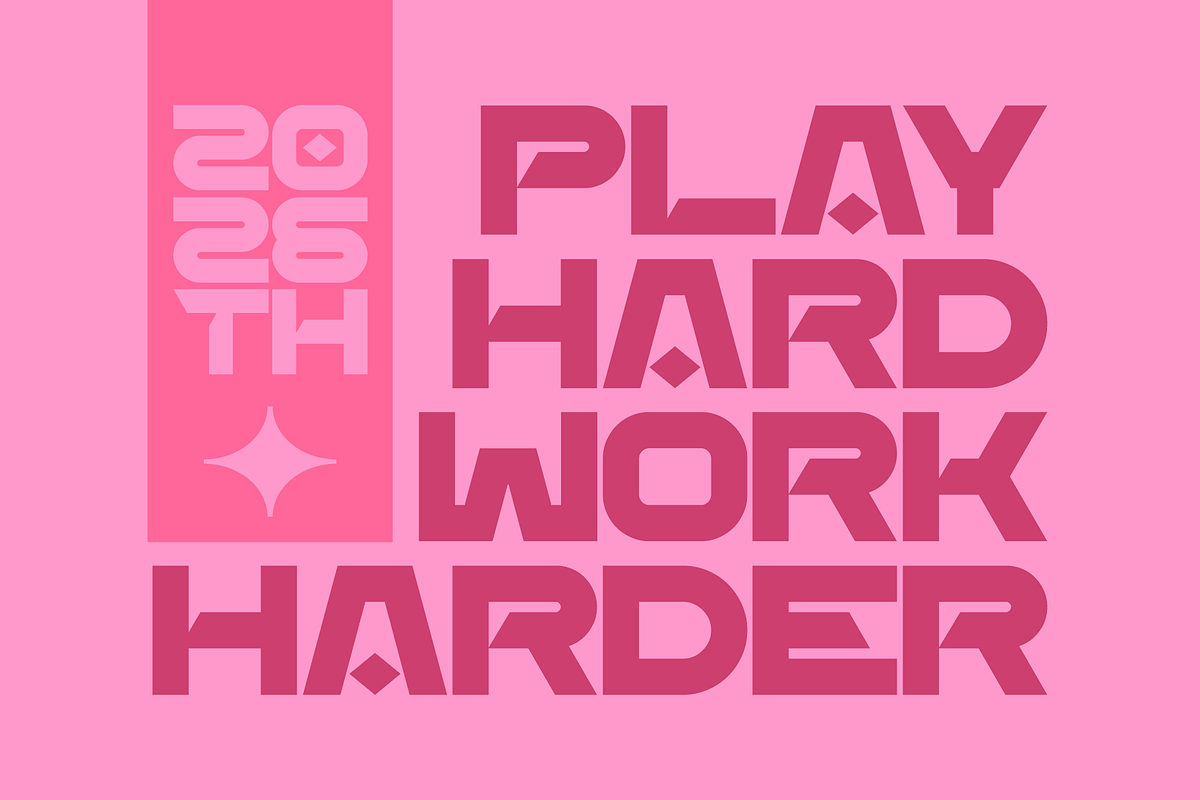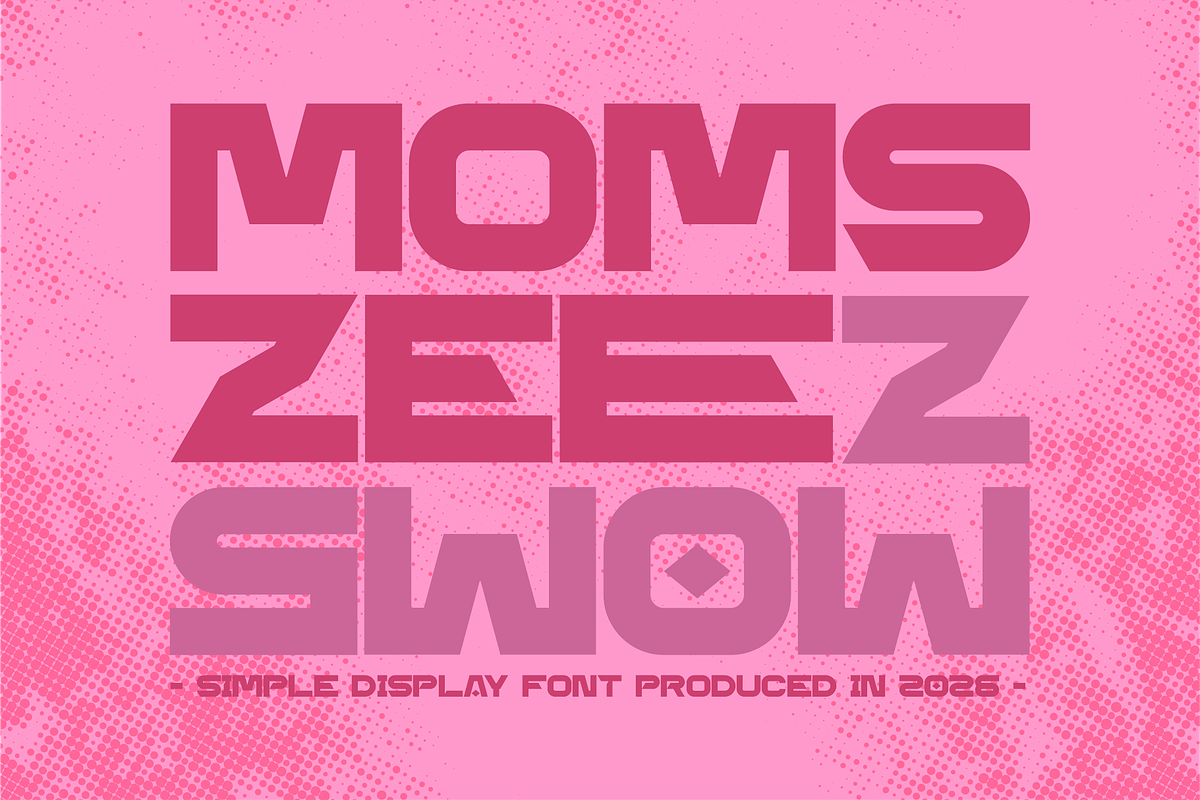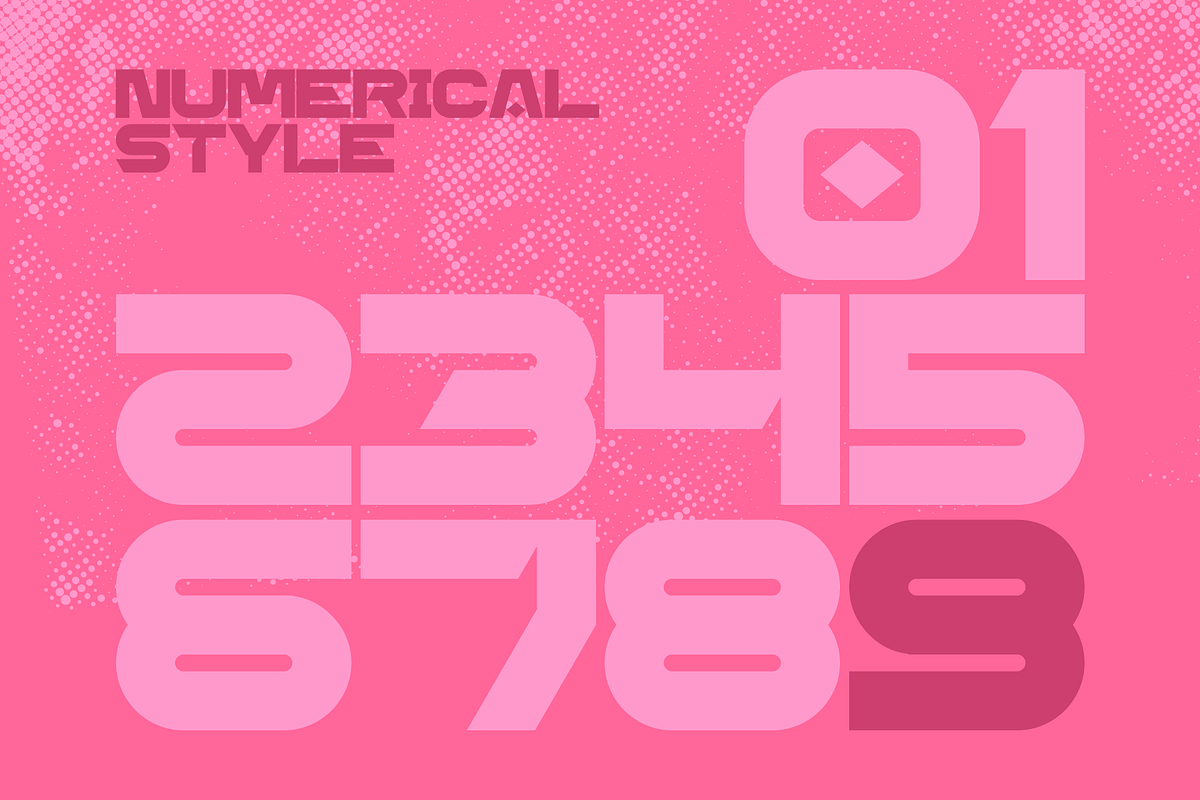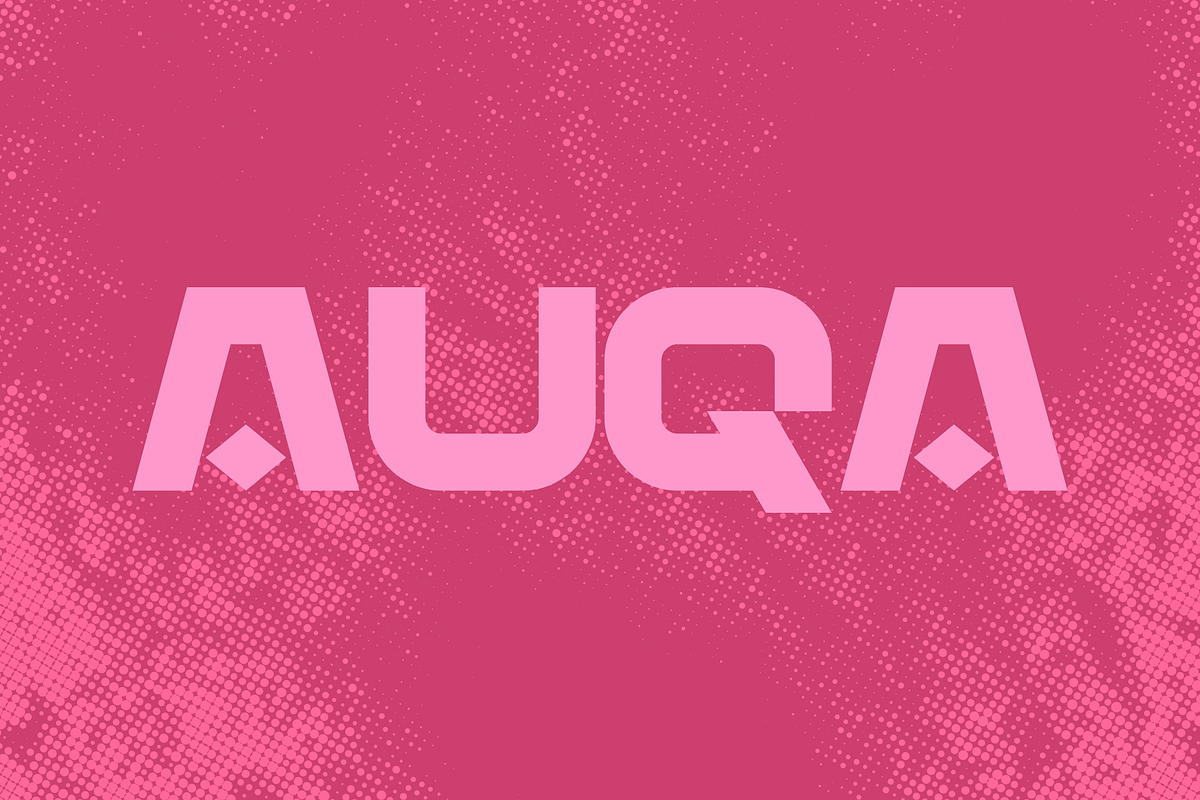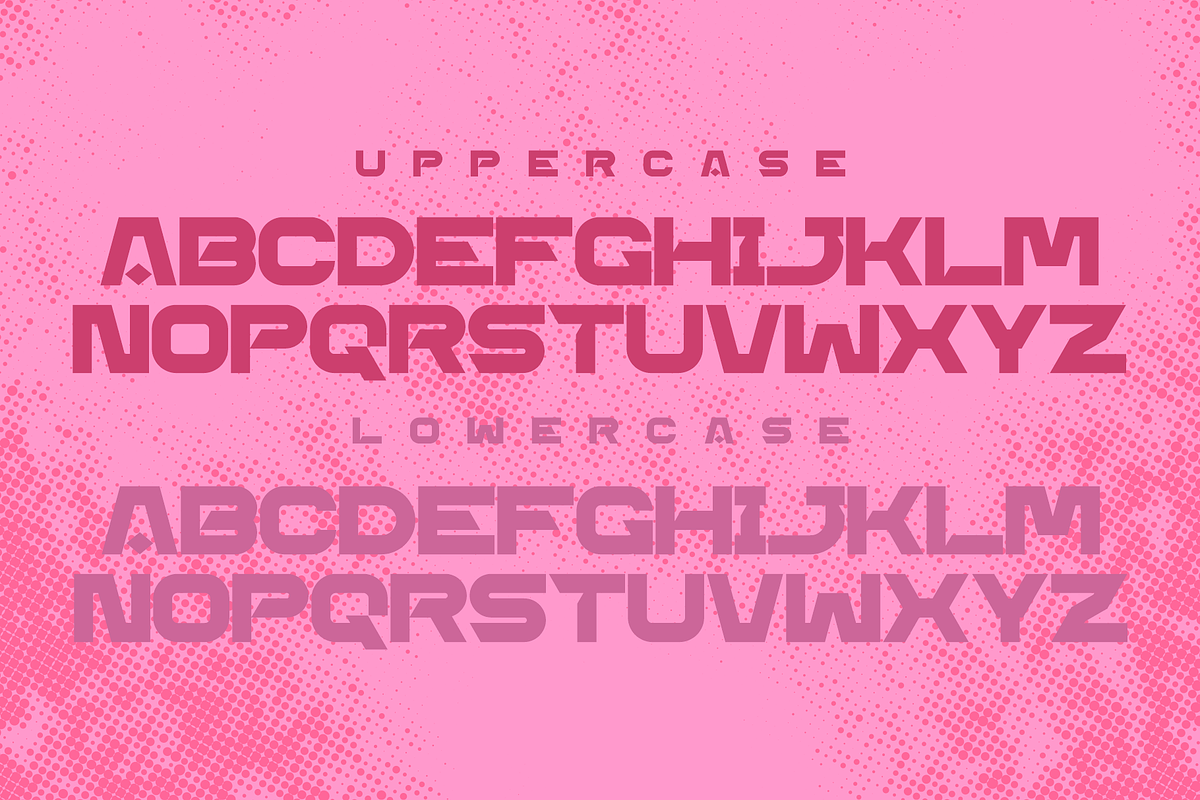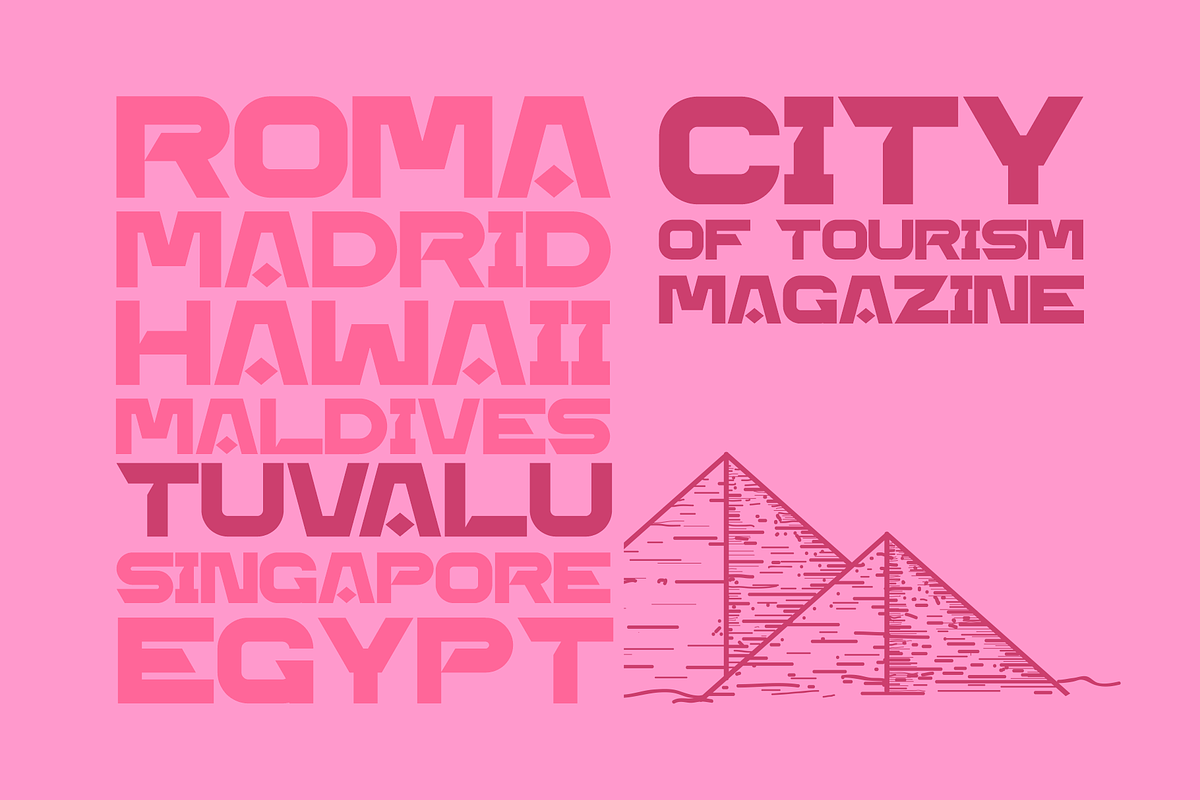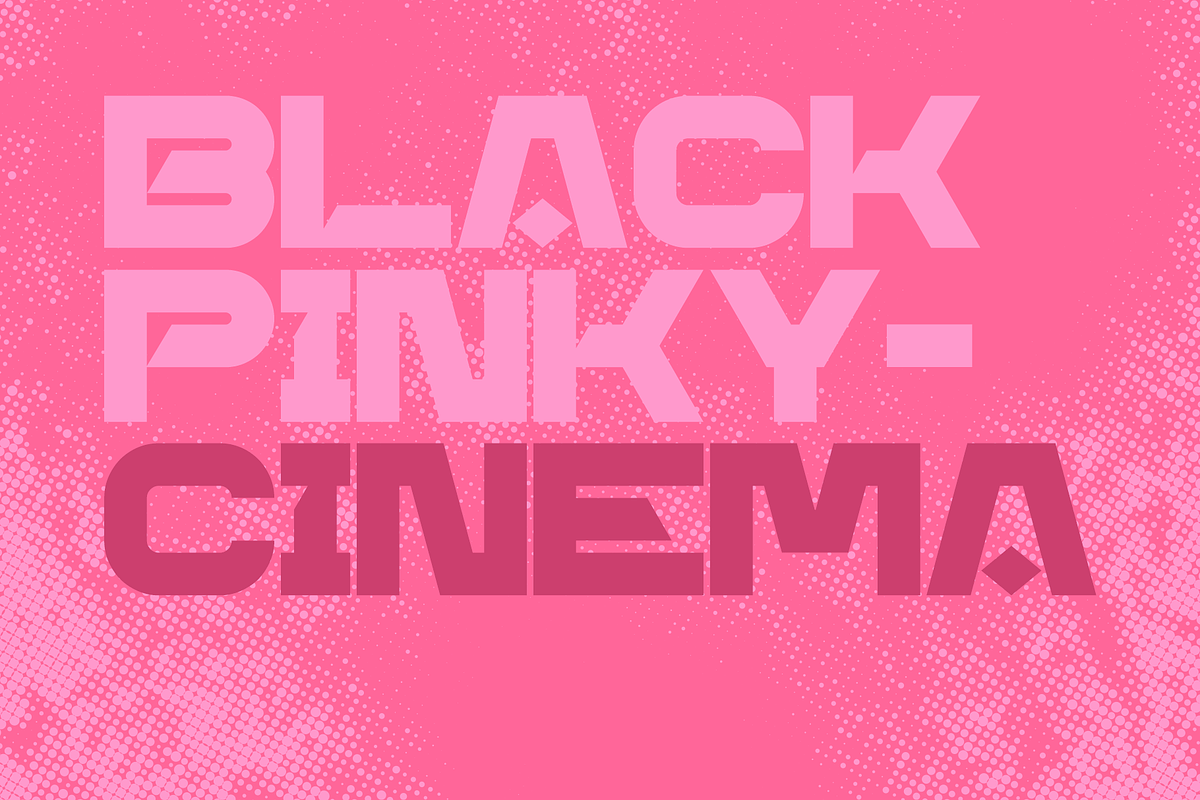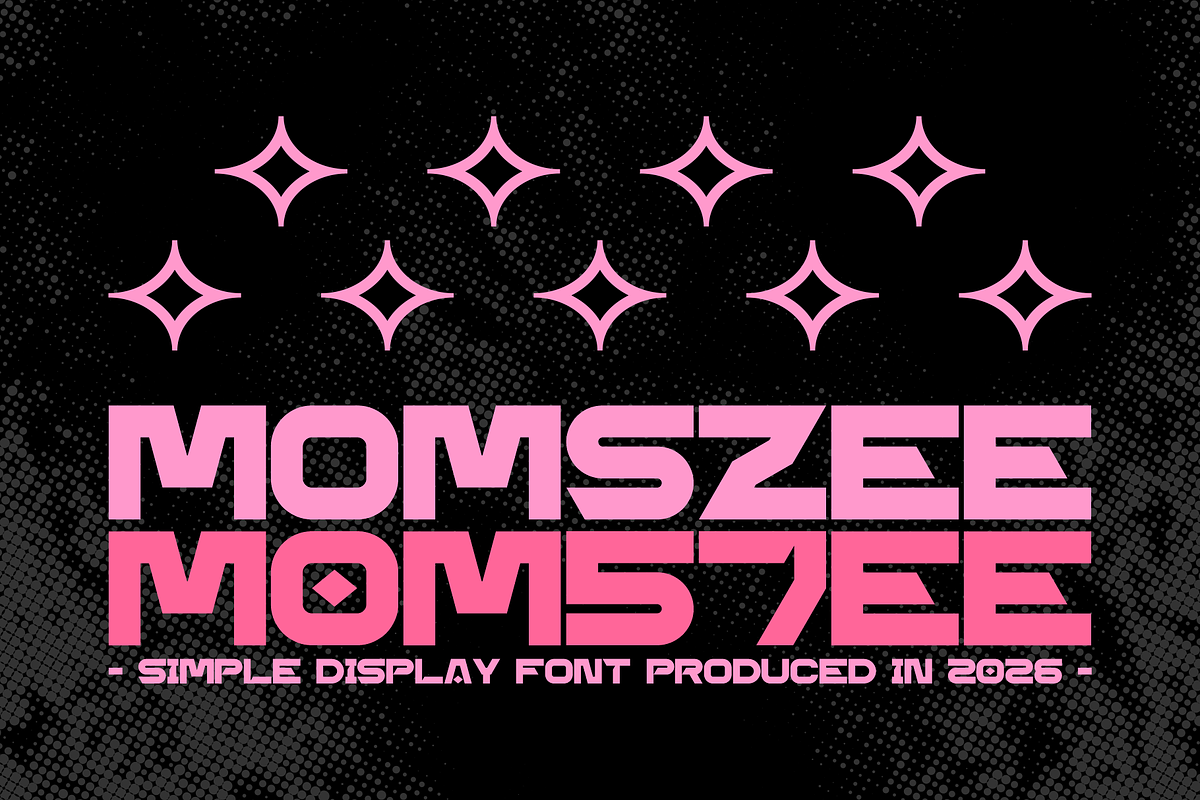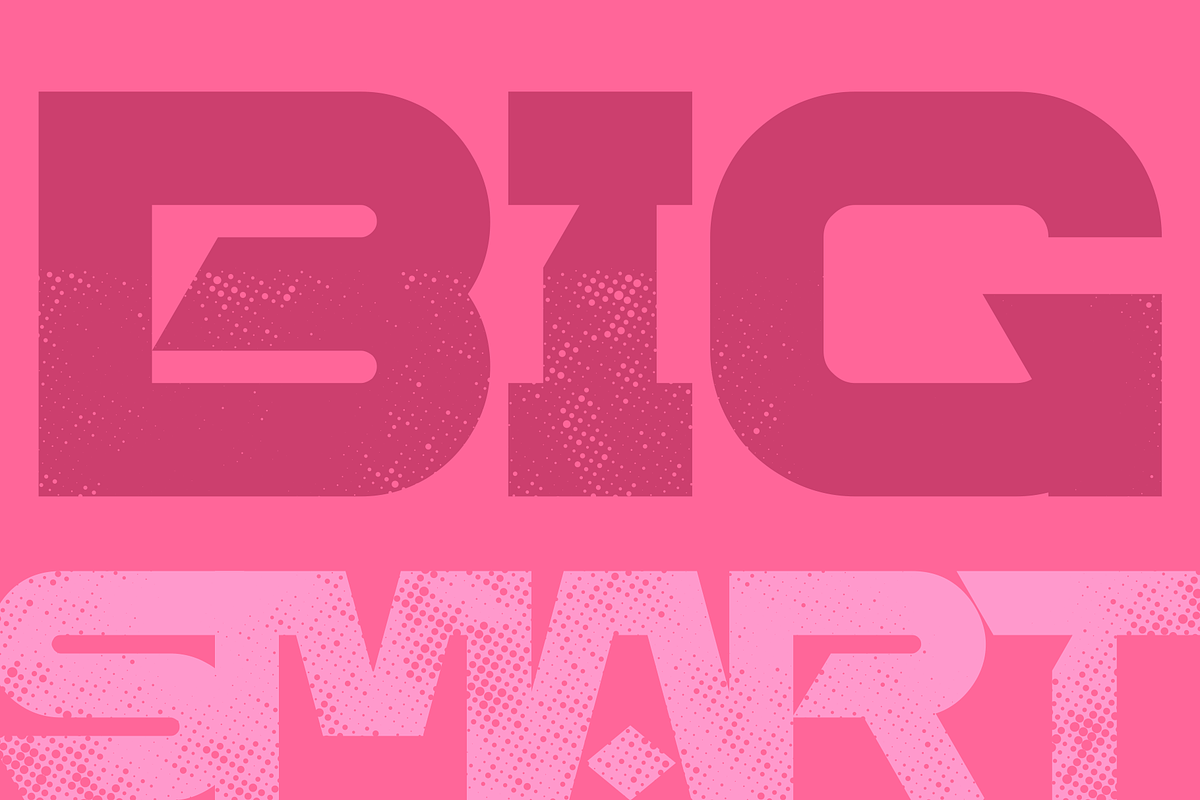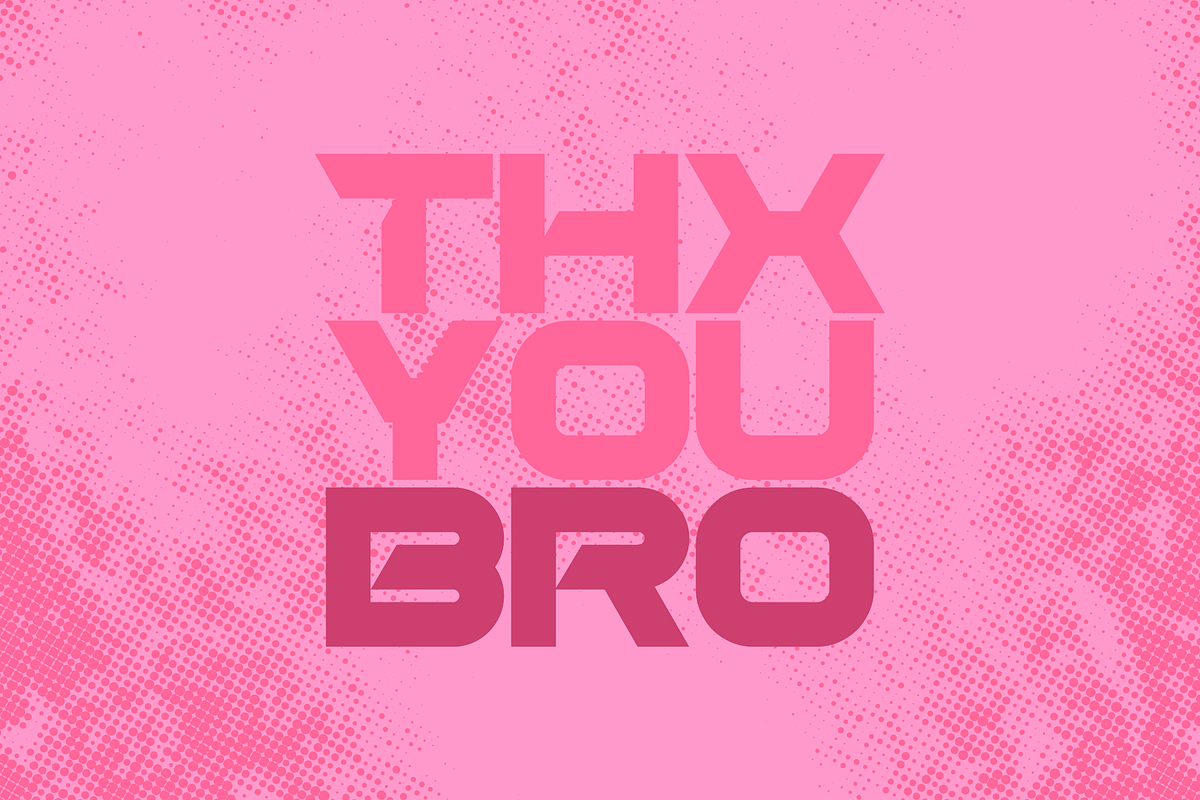
Momszee
MOMSZEE is a modern display font designed to make a powerful visual statement. With its bold structure, clean lines, and contemporary edge, this typeface delivers a perfect balance between futuristic style and minimalist elegance.
Created for designers who want their work to stand out, MOMSZEE brings strong personality and high visual impact — especially in large sizes. Every letter is crafted to be eye-catching, confident, and memorable.
Whether you're building a brand or creating scroll-stopping content, MOMSZEE ensures your typography speaks loud and clear.
Logo design
Branding projects
Posters & headlines
Streetwear & merchandise
YouTube thumbnails
Album covers
Packaging design
Modern editorial layouts